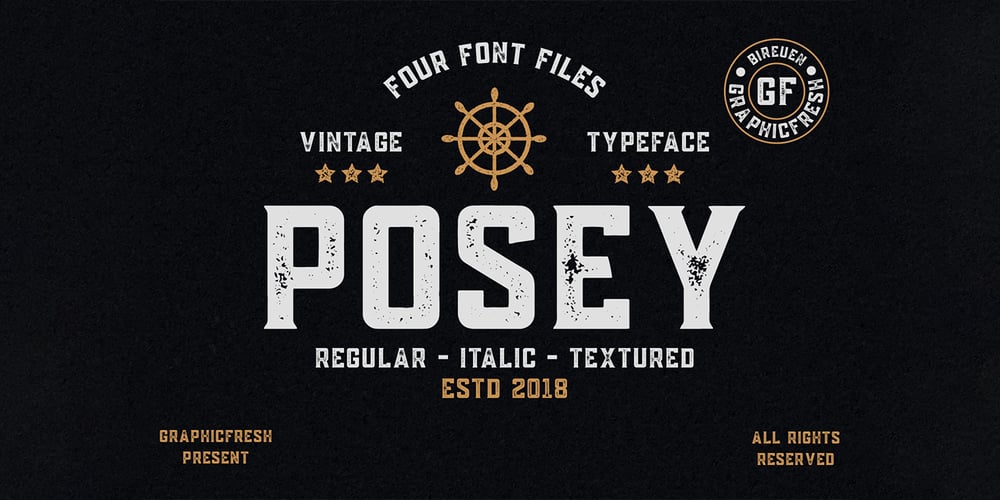
Posey
Posey font
Posey Font Family was designed by Muhammad Husni Haikal and published by Graphicfresh. Posey contains 4 styles and family package options. Posey is a vintage display family (All Caps) including Regular (Clean), Textured versions as well as Italic versions of each. It’s perfect for logos, name card, magazine layouts, invitations, headers, or even large-scale artwork.